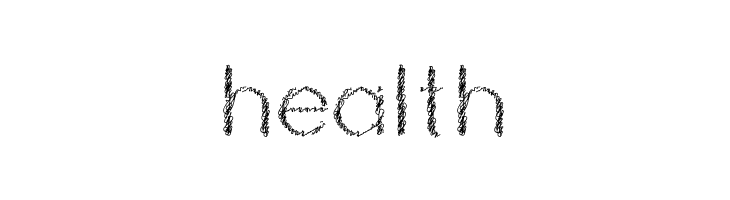
Ozarks Bold Font
A bold, textured font with a hand-drawn, scribble-like appearance.
Ozarks Normal Font
A textured, sketch-like font with playful and artistic characteristics.